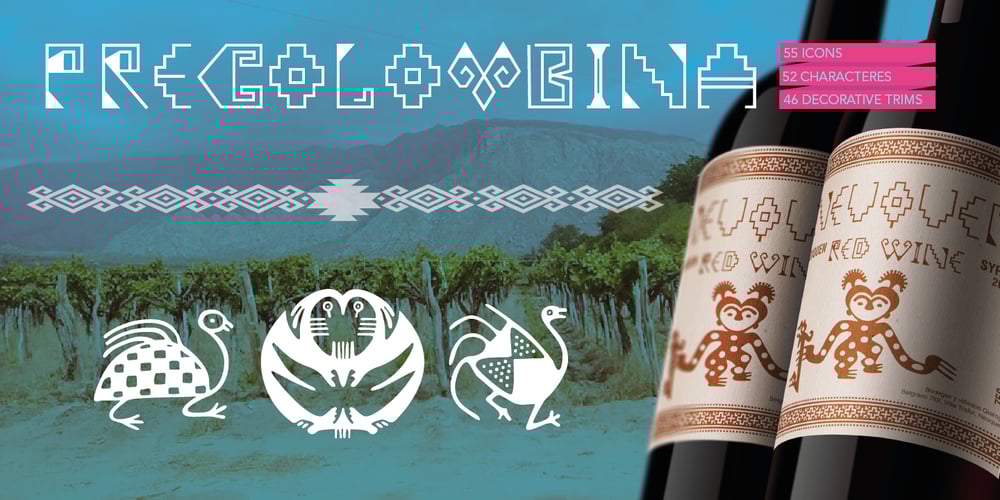
Precolombina Font Family was designed by Juan Ignacio Siwak and published by Juan I. Siwak. Precolombina contains 1 styles and family package options. “Precolombina” consists on a series of graphic symbols native to South America, decorative trims, and a minimal set of typographic characters. The signs were taken from ceramic pottery, clothing, and petroglyphs from the southern cone of South America. We try to select a varied range of signs representing shamans, jaguars, rheas, monkeys, birds, and mythological beings. The decorative trims are taken from the same places and occupy the set of numbers. Finally, it contains the minimum characters of a font to achieve a brand or a title. They take place in the OpenType resources.